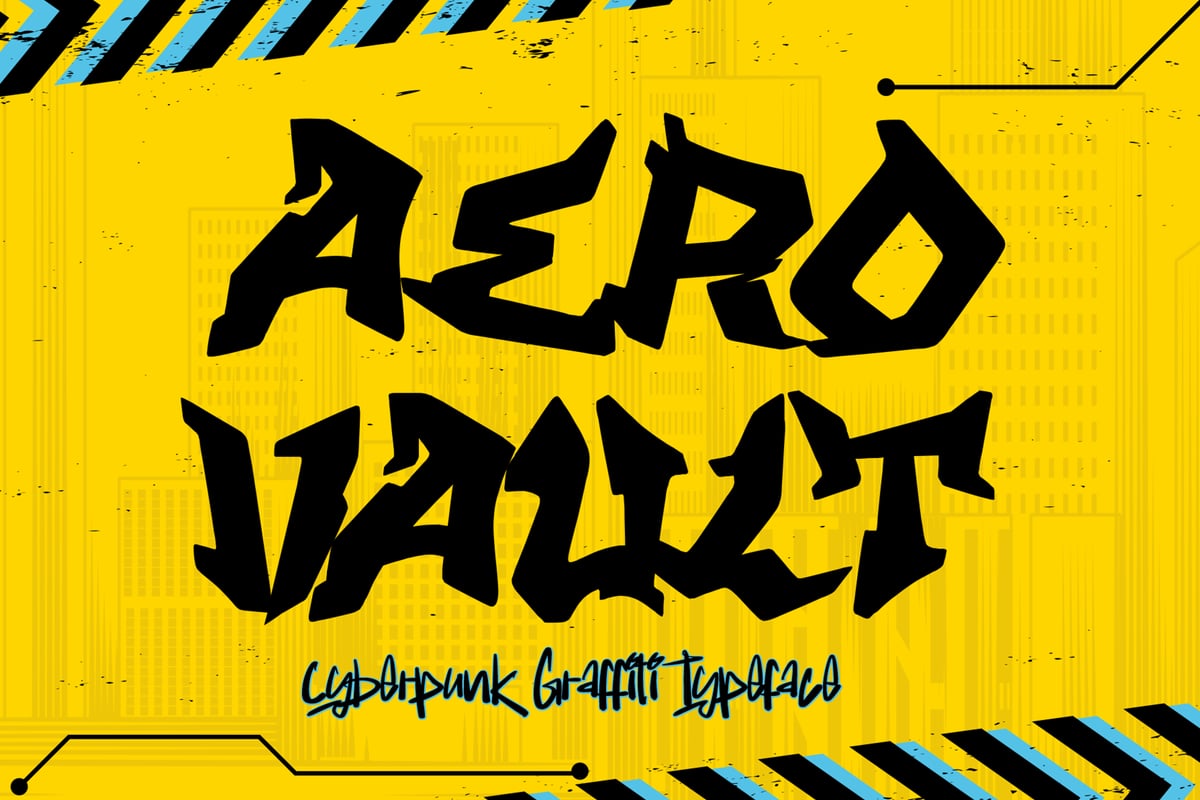
Aero Vault Outline
Aero Vault is a cyberpunk graffiti font that fuses the raw energy of street tagging with the neon edge of futuristic design. Inspired by the bold lettering seen on sci-fi streets and high-tech city walls, this font combines rebellion and innovation into one powerful visual identity. Every stroke in Aero Vault is built with confidence — sharp corners, angular flow, and aggressive motion. The letterforms echo the spirit of graffiti handstyle, but with a modern digital structure that feels straigh